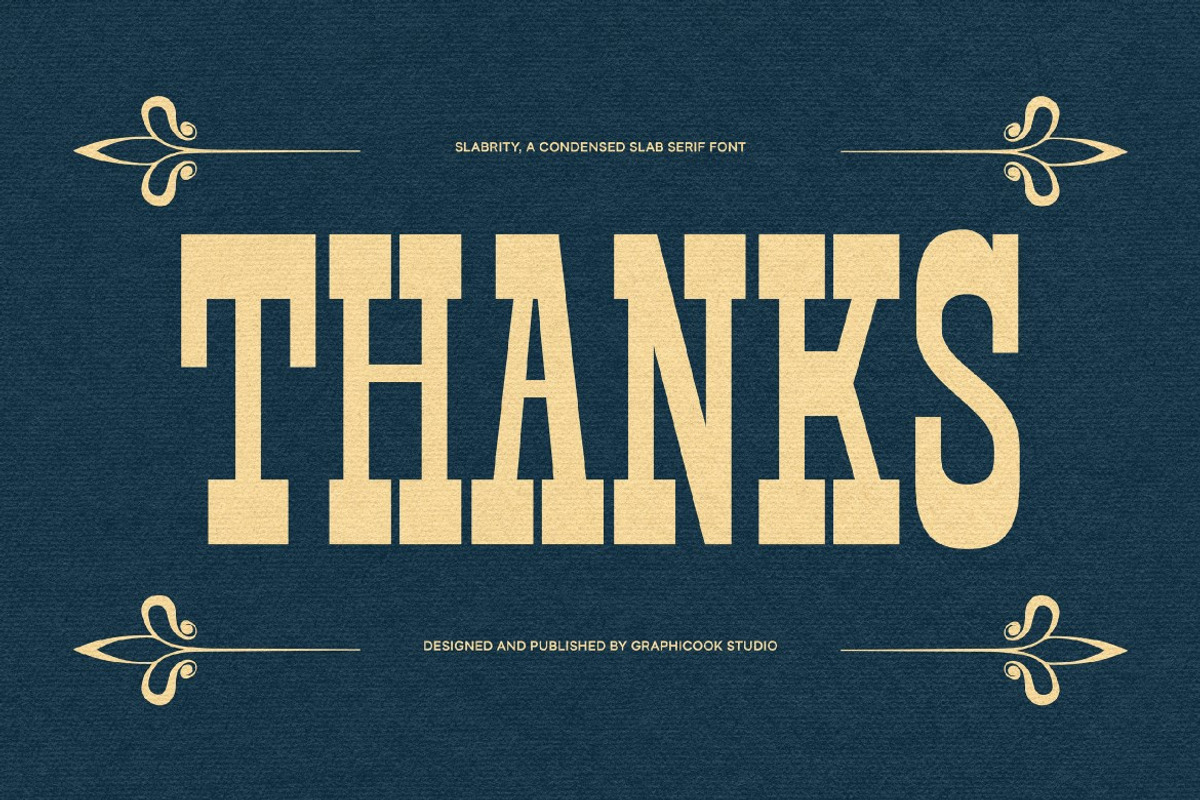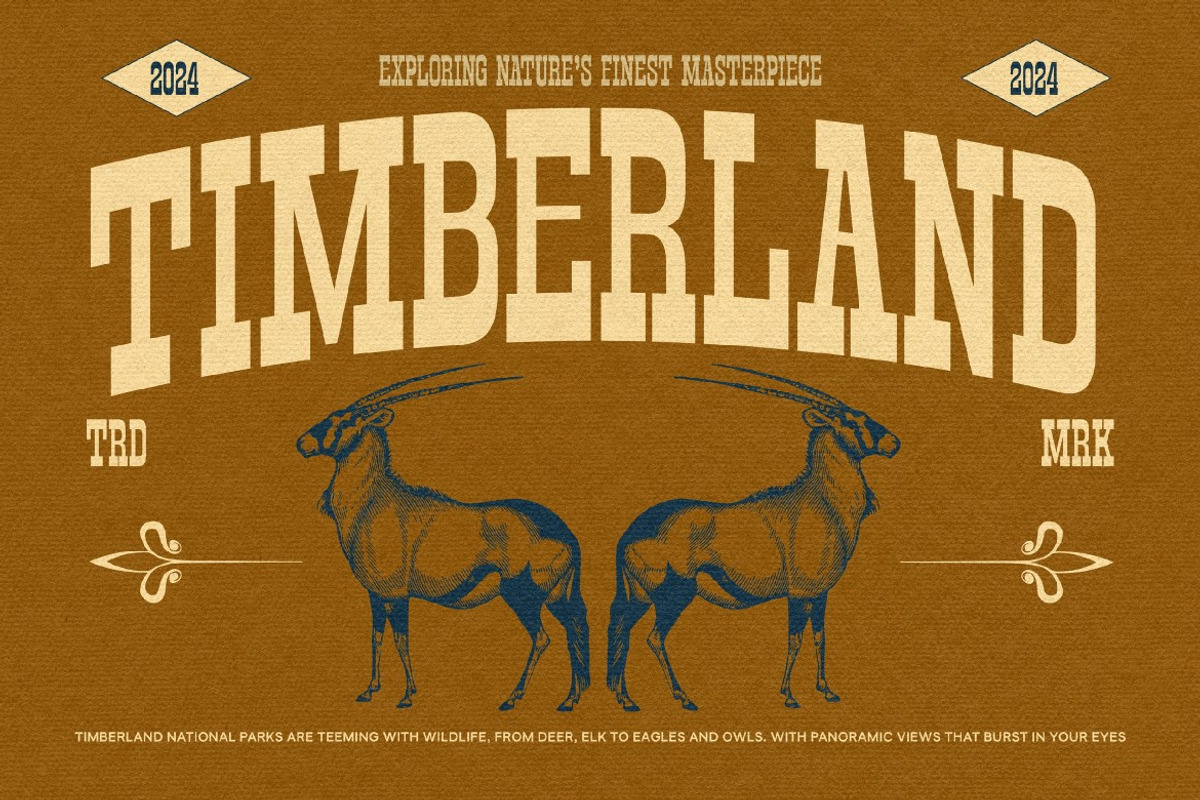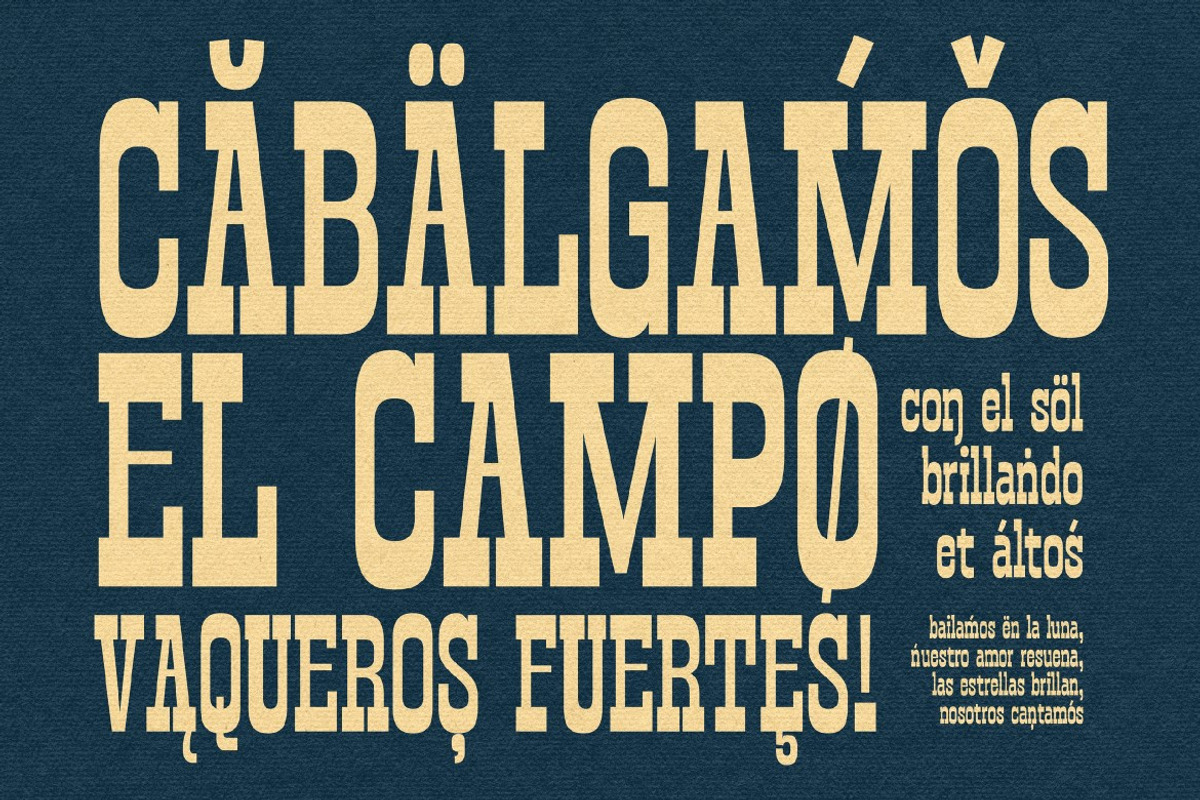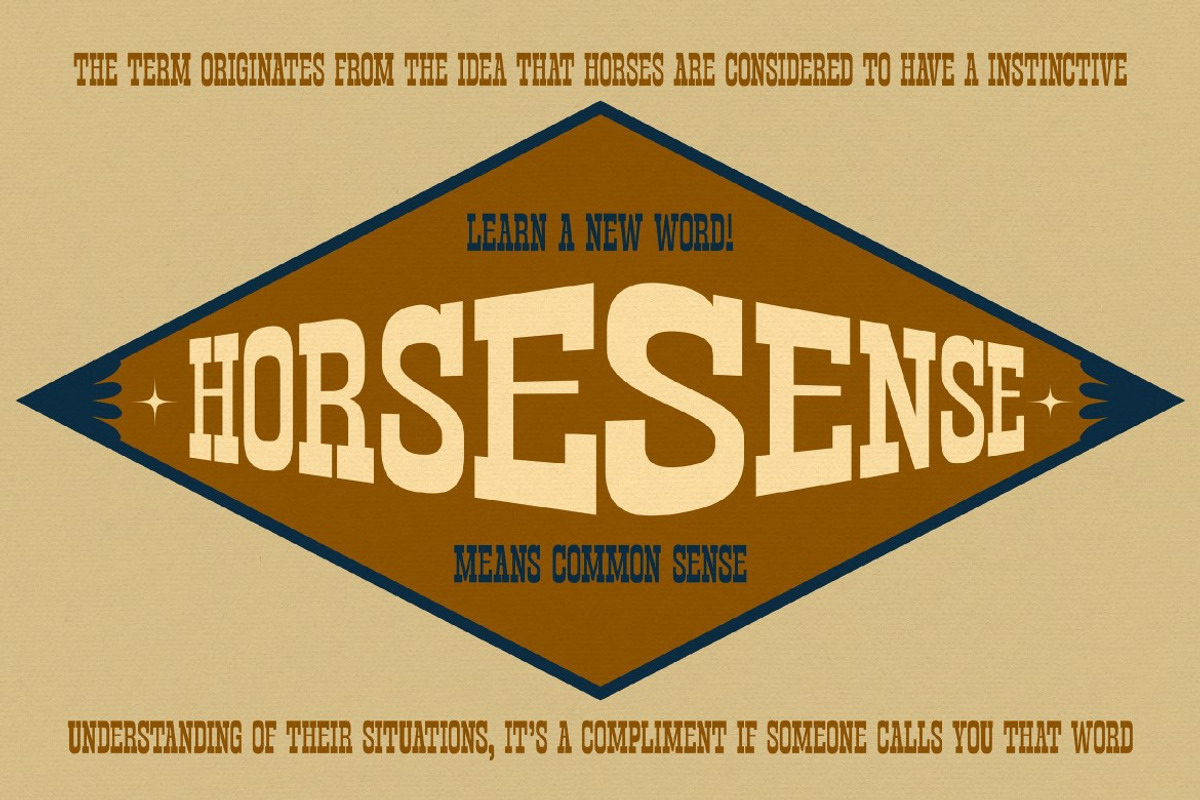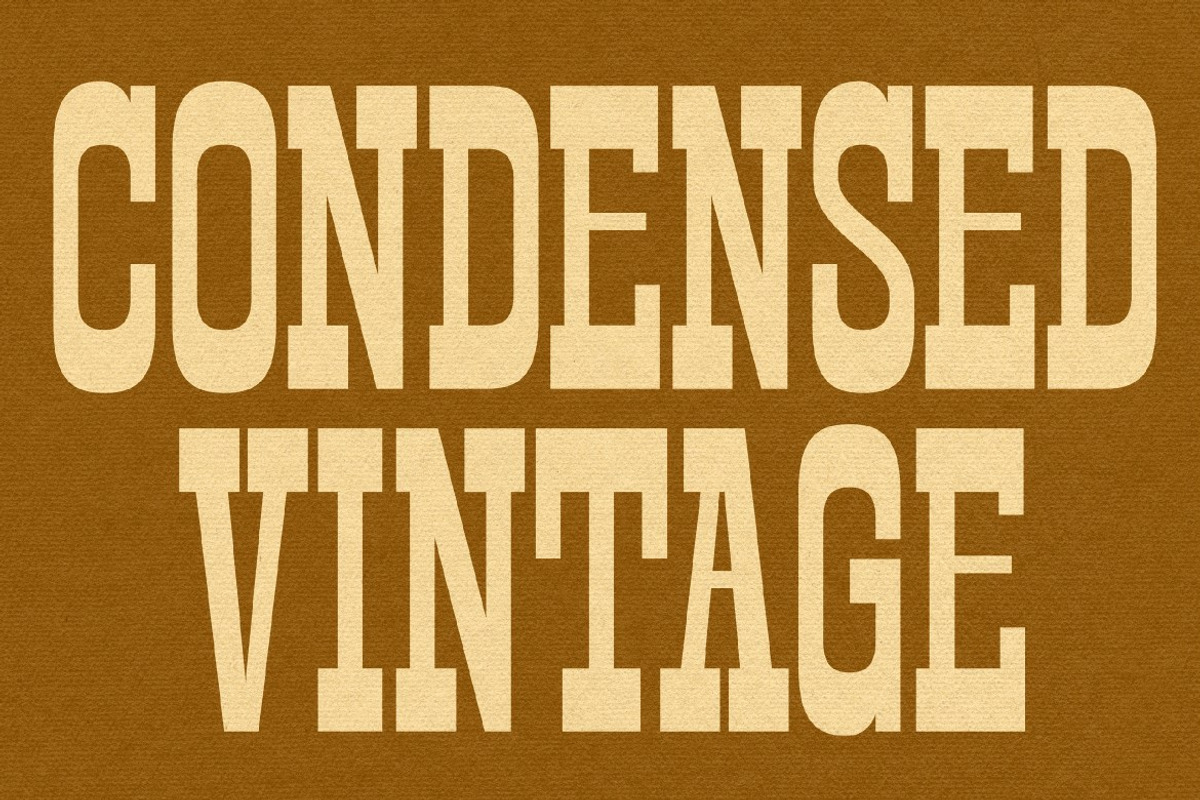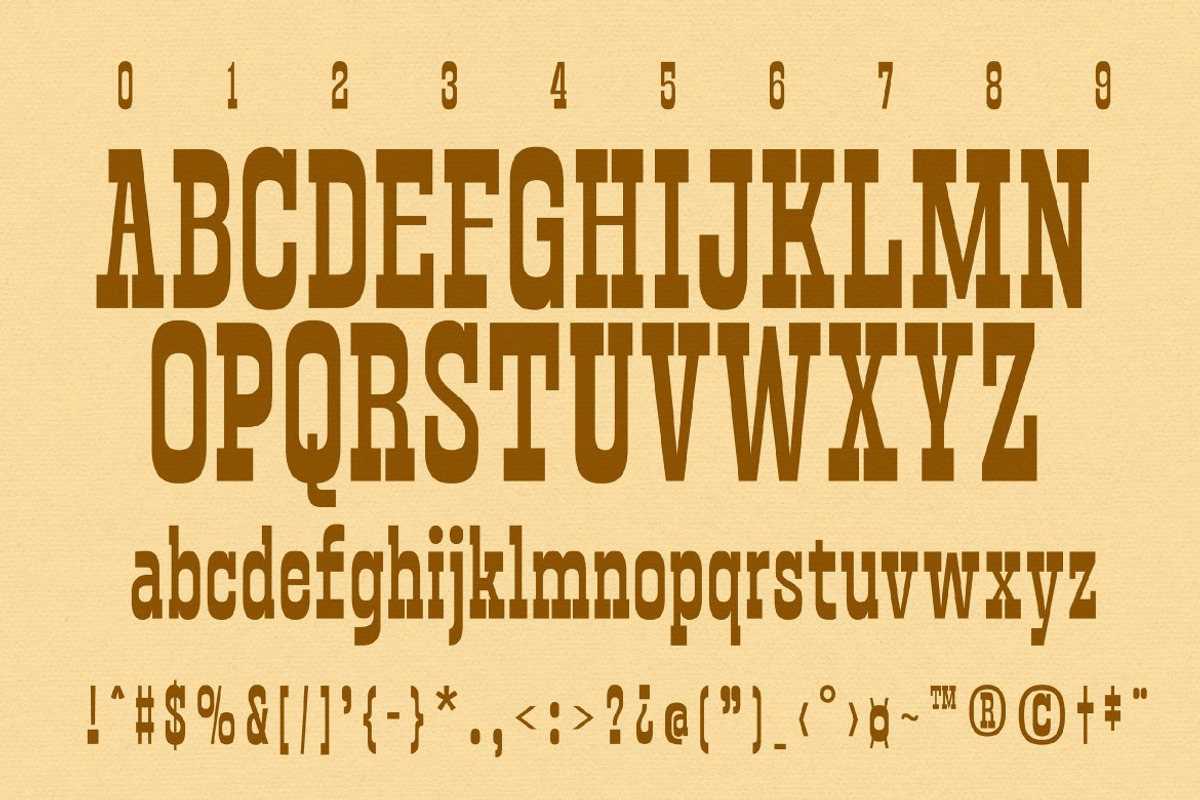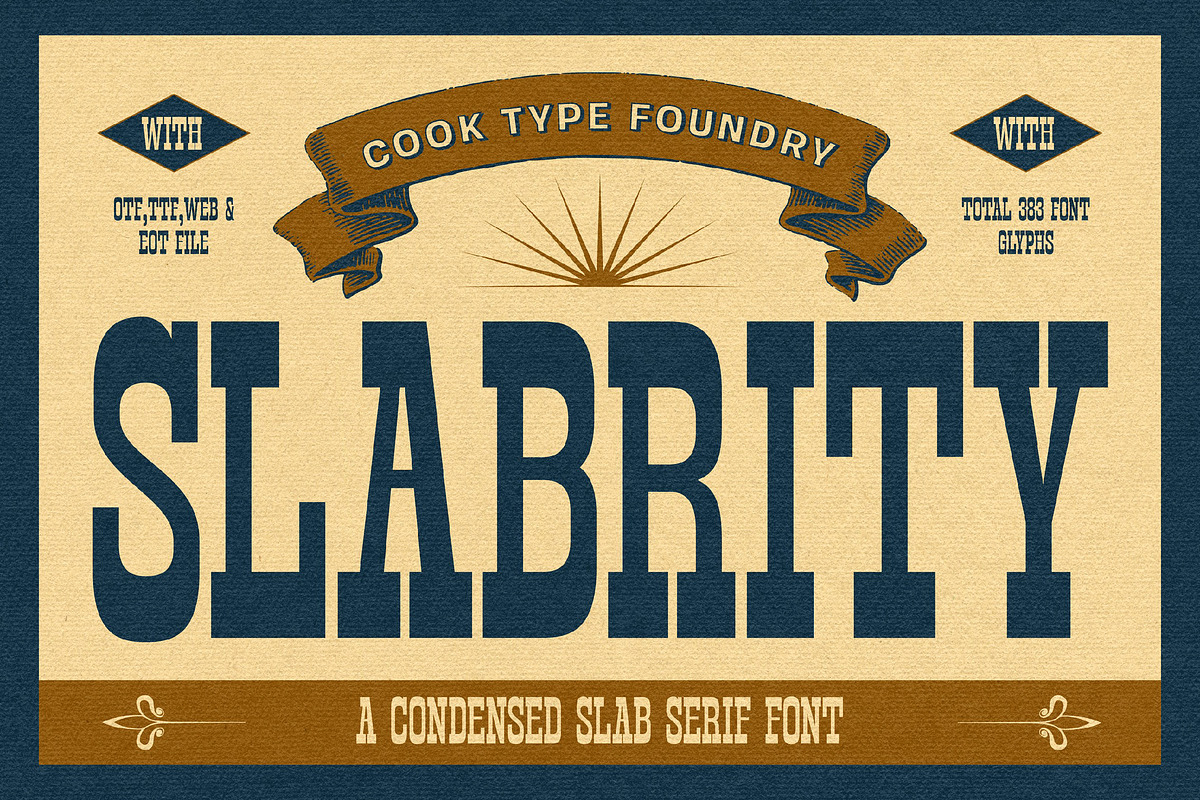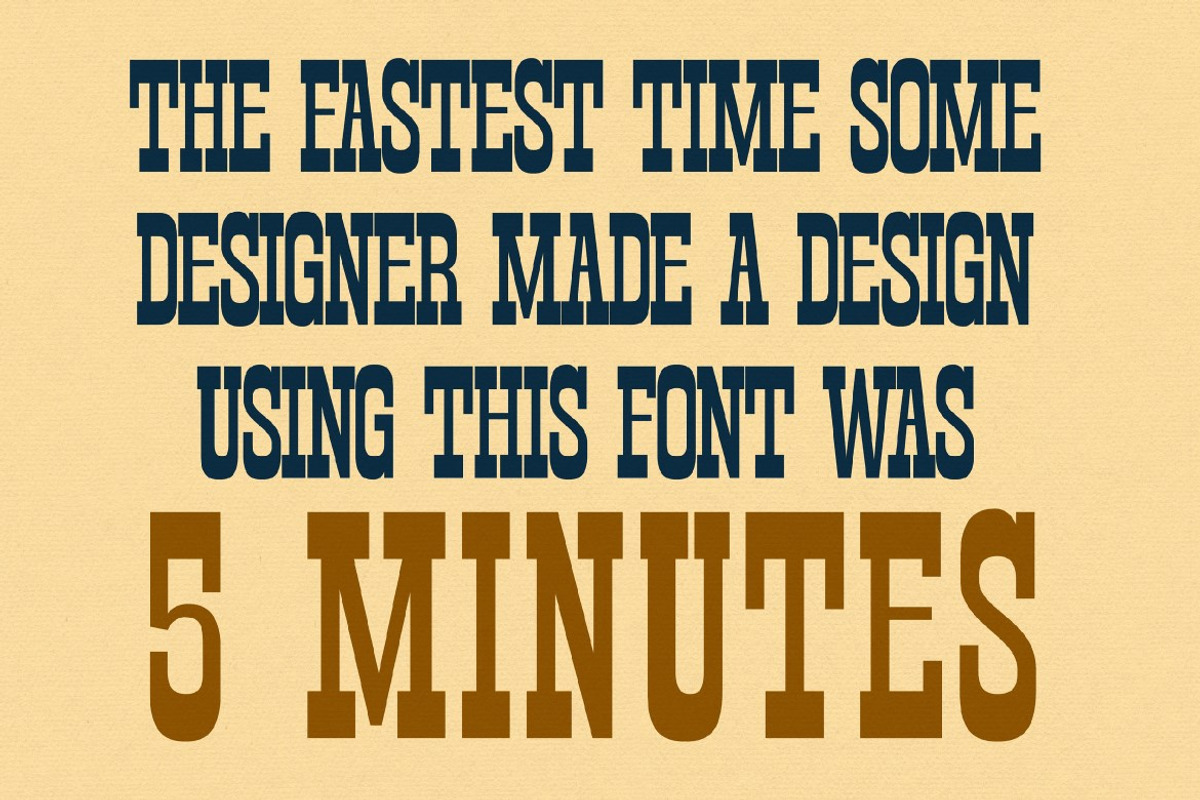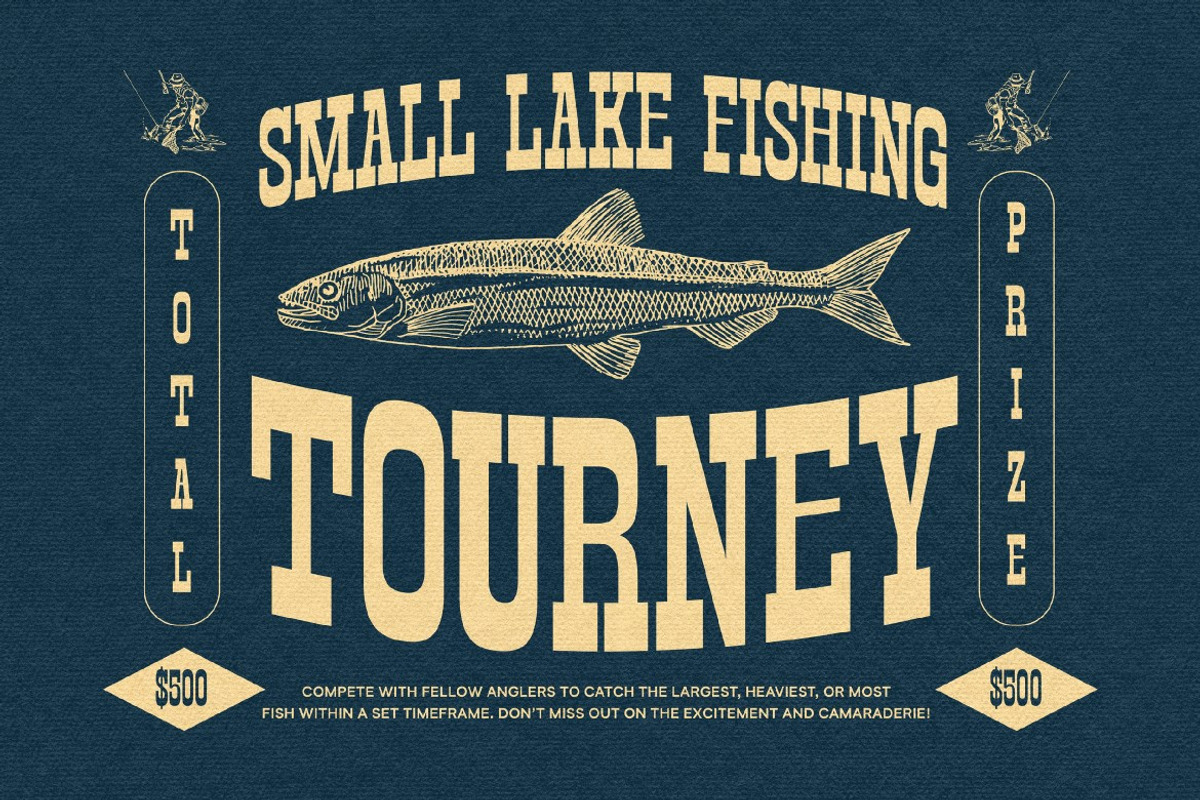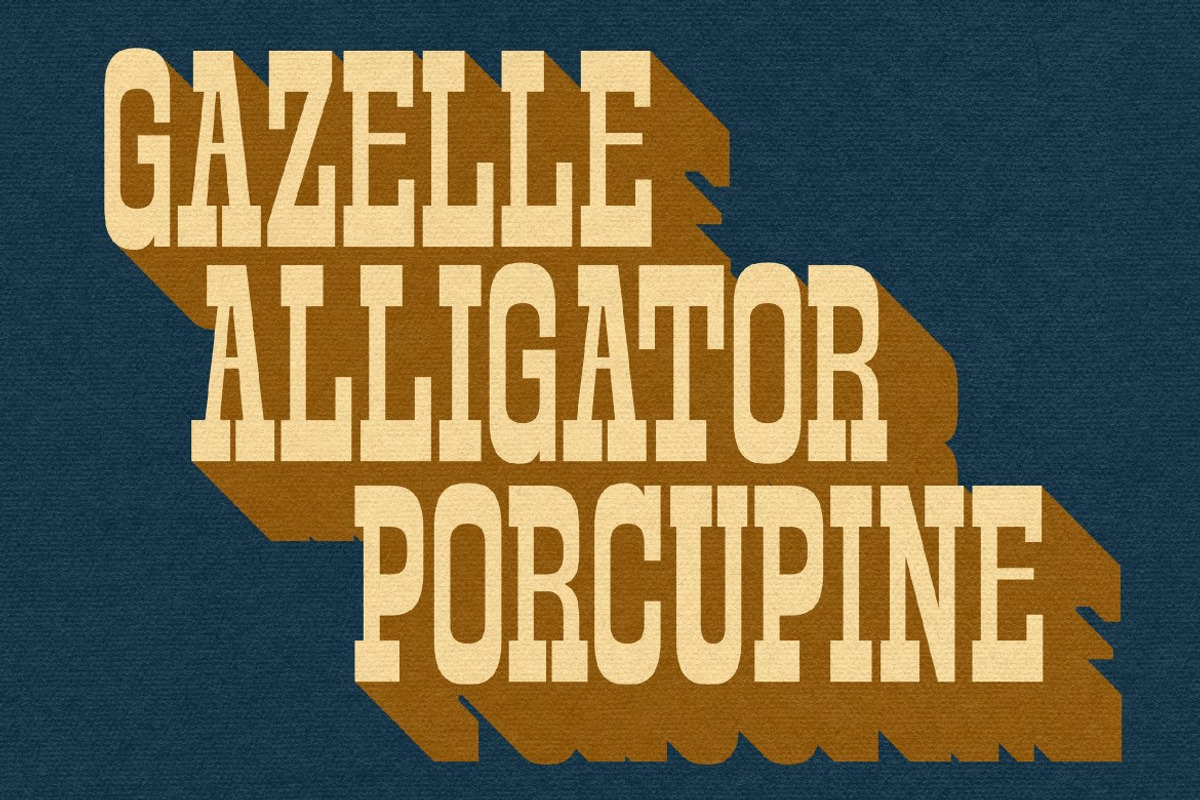
Slabrity
Slabrity is a condensed slab serif font with a touch of vintage style. It's versatile enough for headlines, editorial work, posters, and more.
Slabrity is perfect for headlines, logotypes, magazines, packaging, quotes, movies, games, cover albums, book covers, and flyers, it's a perfect solution for creating eye-catching designs that stand out in any context.